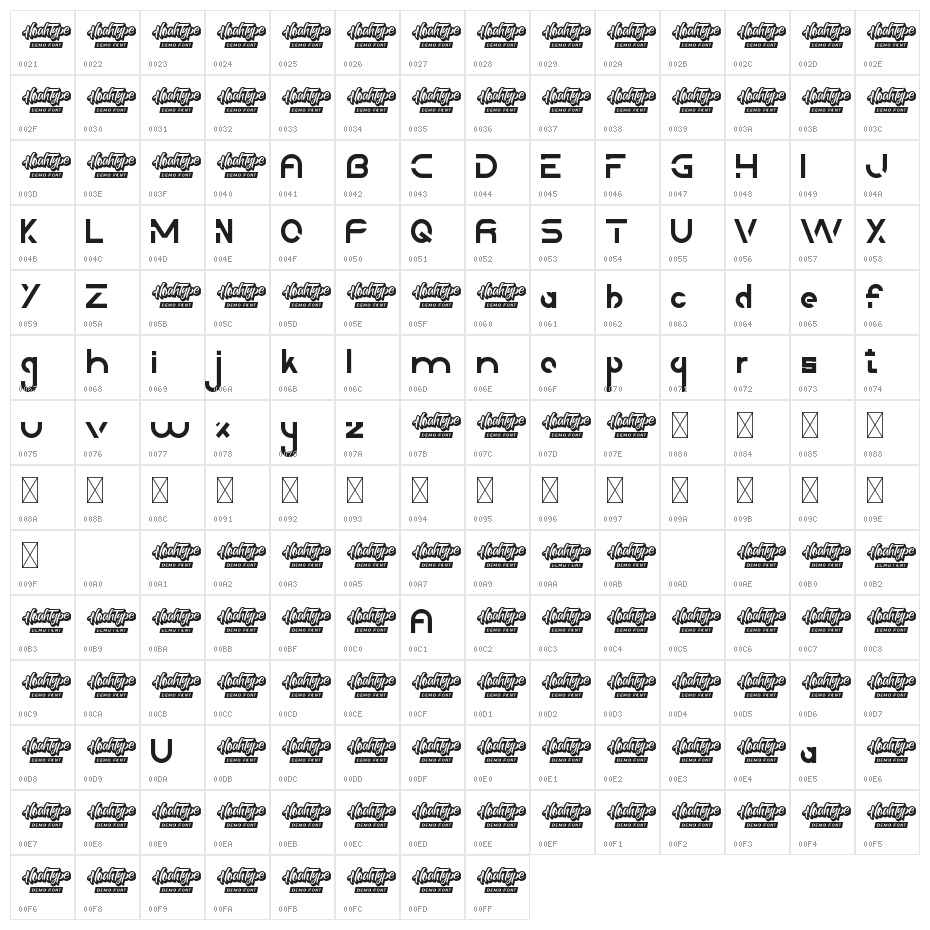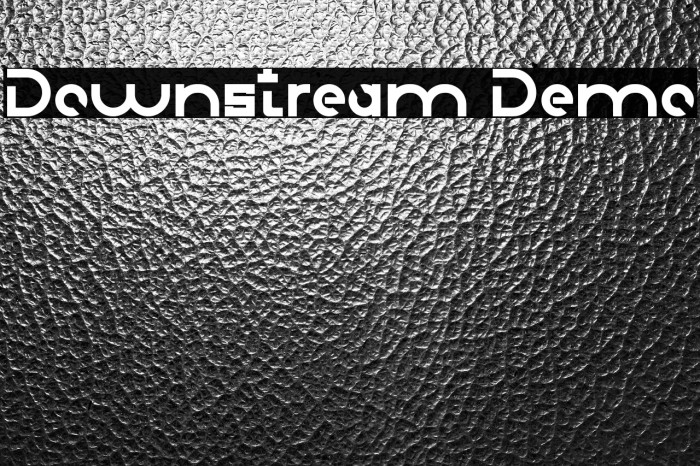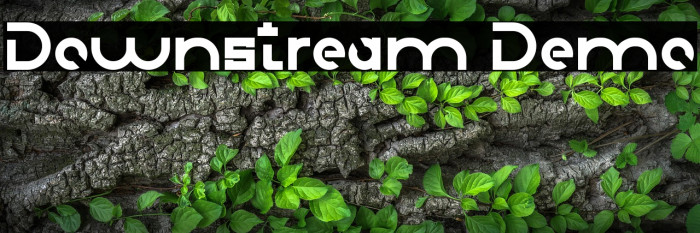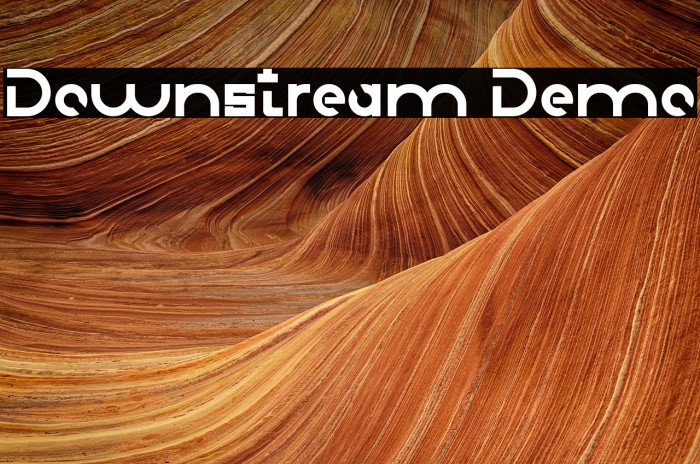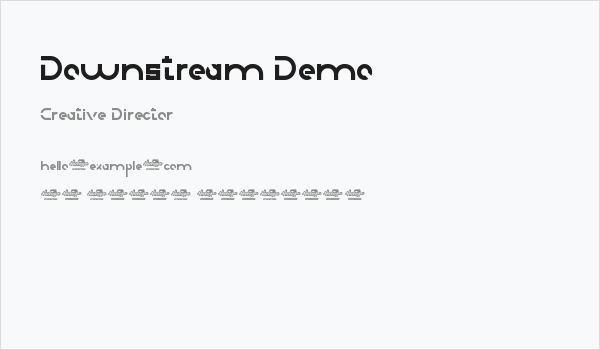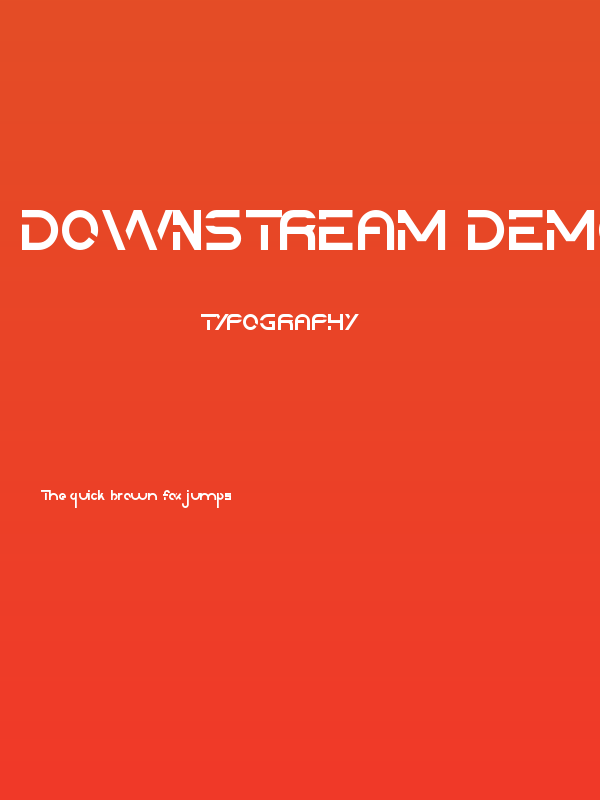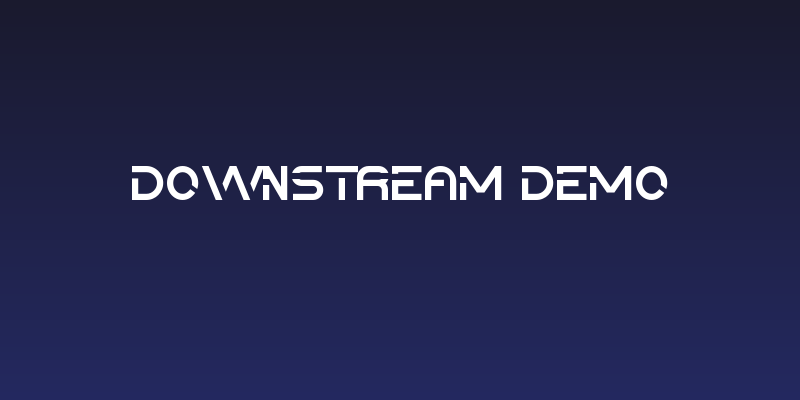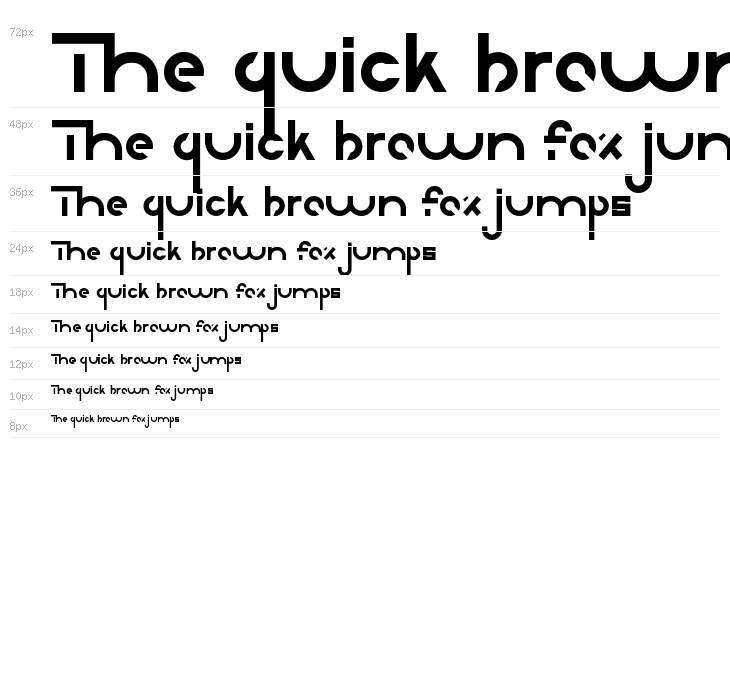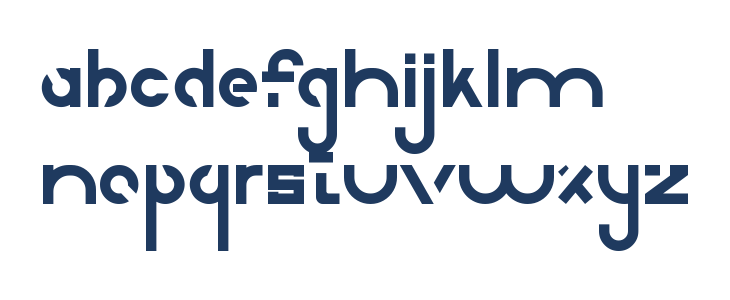
Downstream Demo Font
Downstream Demo Description
This font features a bold, geometric design with a futuristic aesthetic. The characters are constructed with sharp angles and straight lines, creating a modern and sleek appearance. The uppercase letters have a distinct, blocky form, while the lowercase letters maintain a consistent style with rounded edges and unique cutouts. The numerals and special characters follow the same design principles, ensuring a cohesive look across all glyphs. This font is ideal for projects that require a contemporary and edgy feel, making it suitable for technology-related branding, sci-fi themes, and modern advertising.